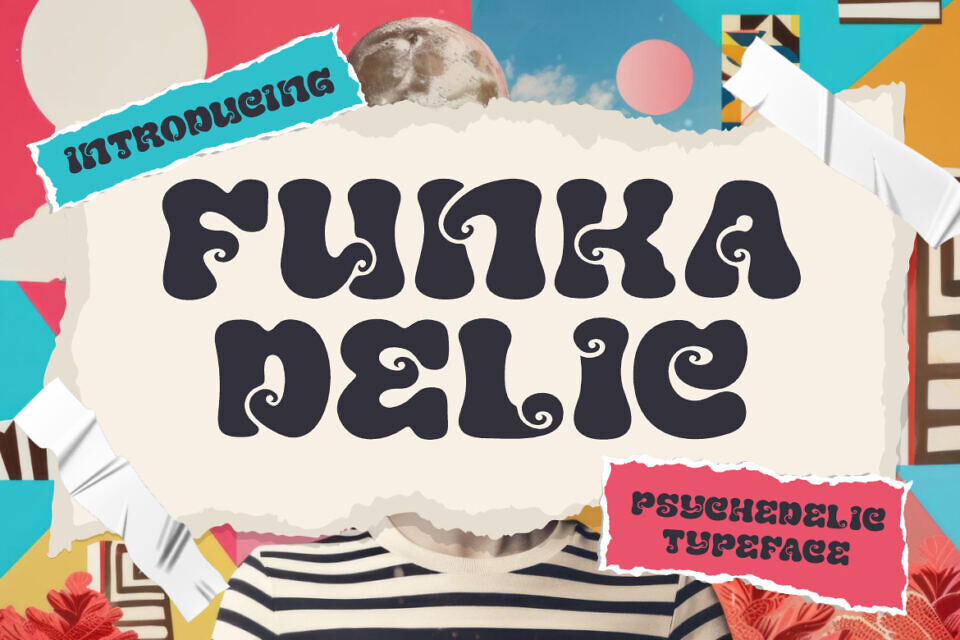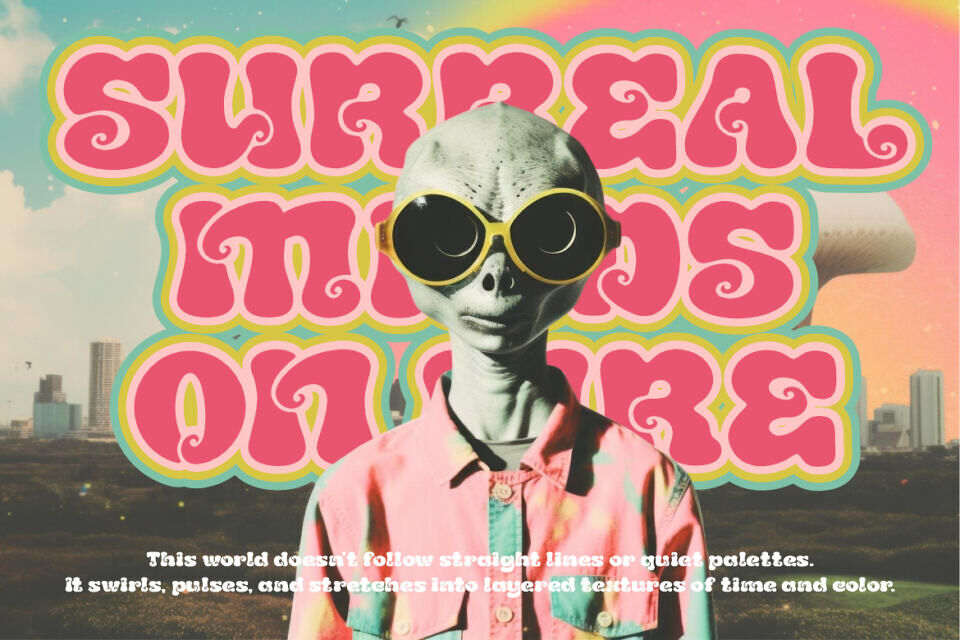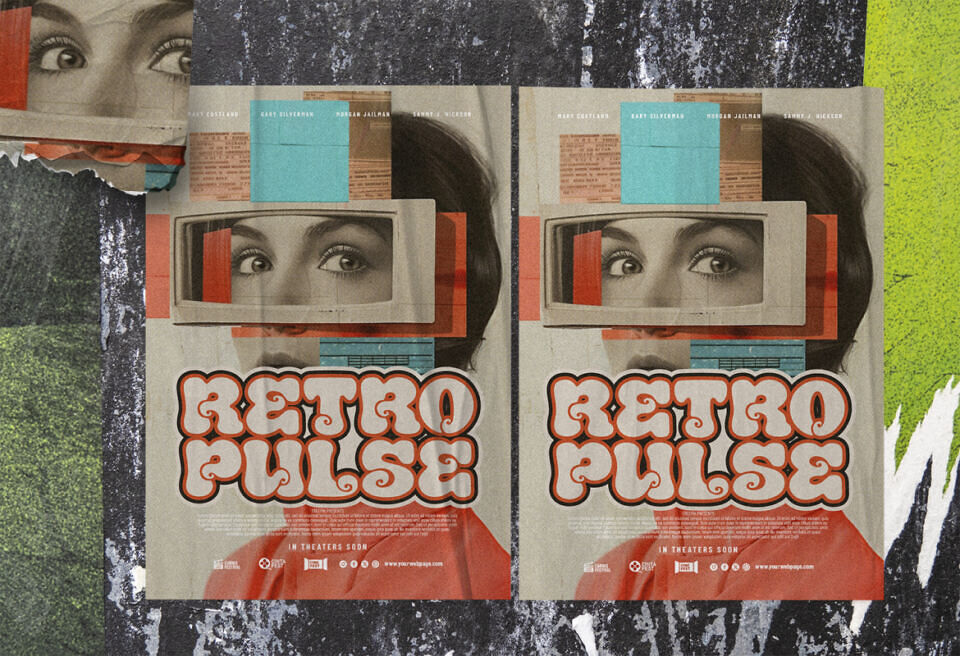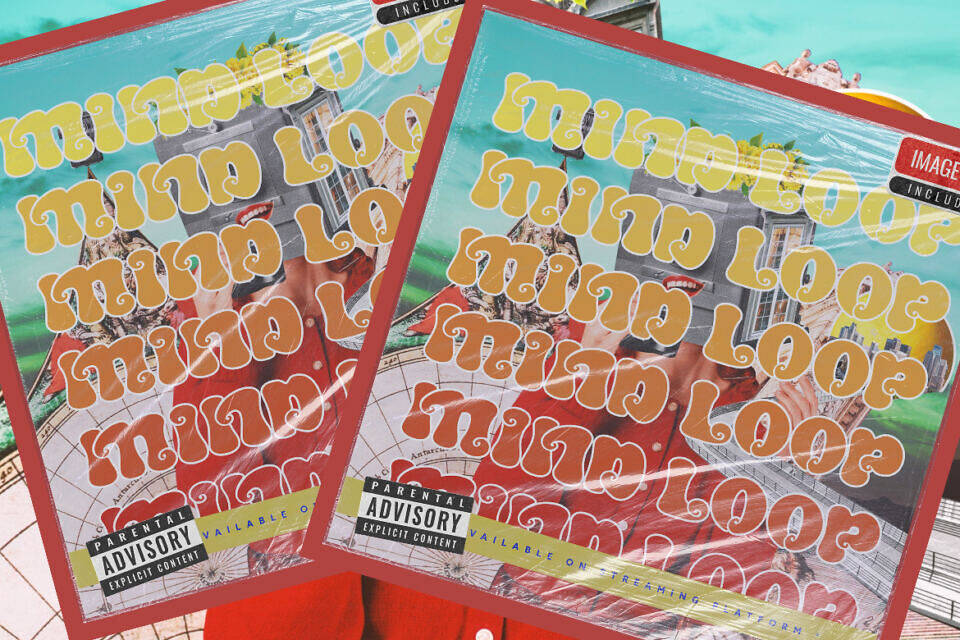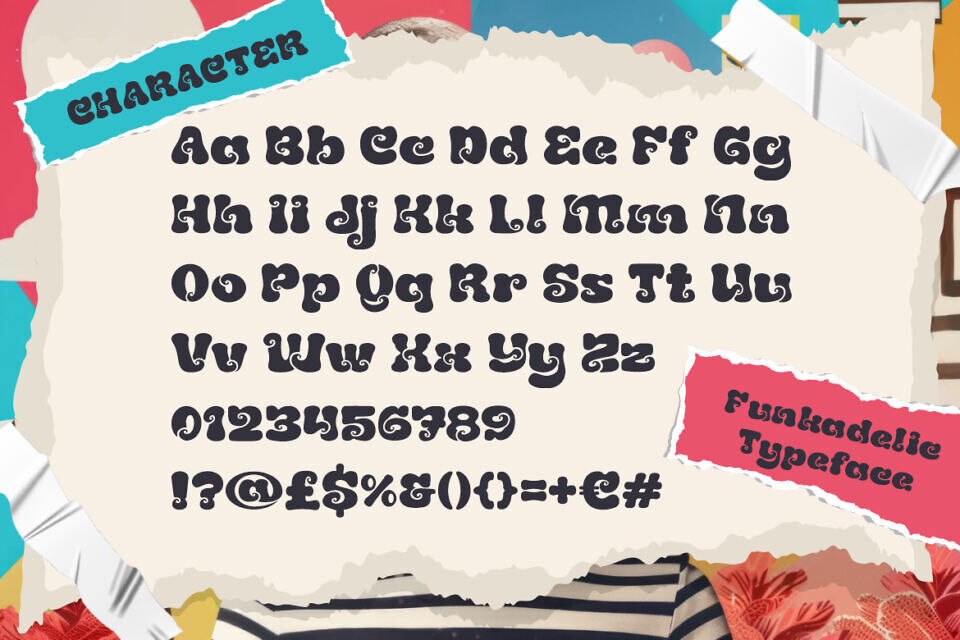
Funkadelic Font
Funkadelic Psychedelic Font brings the wild spirit of the 70s into modern design. Each character bursts with bold, curvy swirls, inspired by the groovy aesthetics of retro posters, album covers, and vintage magazines. The rounded, fluid letterforms combine a playful personality with a strong visual impact, making them perfect for designs that demand attention.
Its psychedelic flow captures the essence of vibrant music festivals, classic hippie culture, and colorful retro art, while still feeling fresh in today’s creative projects. This font is ideal for logos, posters, packaging, invitations, and social media graphics where you want to inject personality. Use it for retro-inspired branding, funky product packaging, movie titles, or bold headlines.